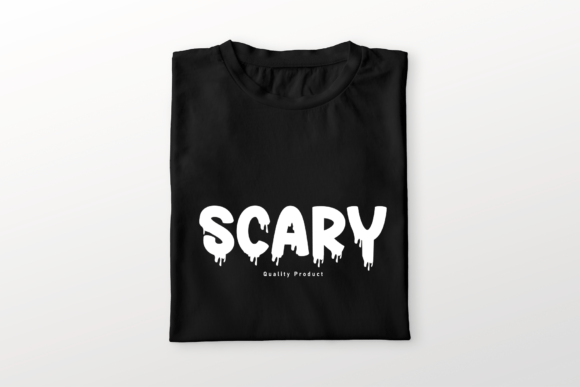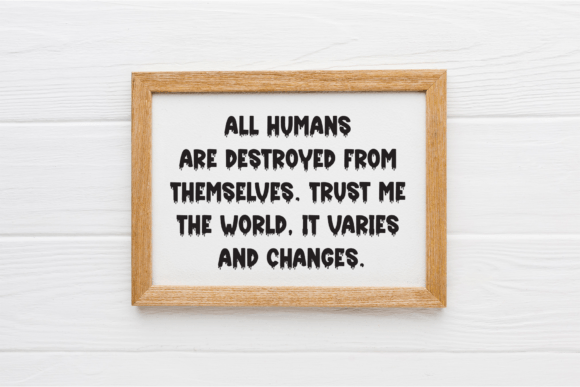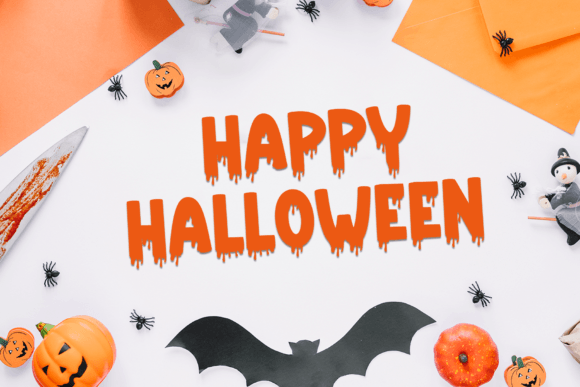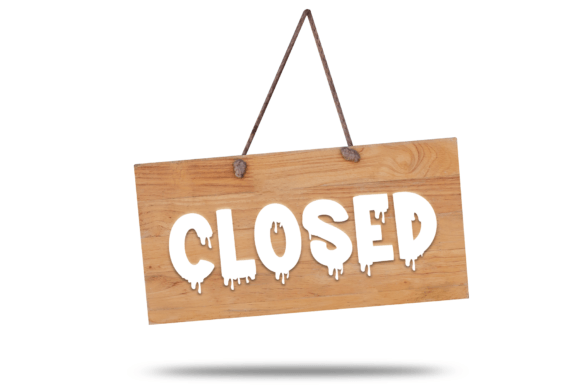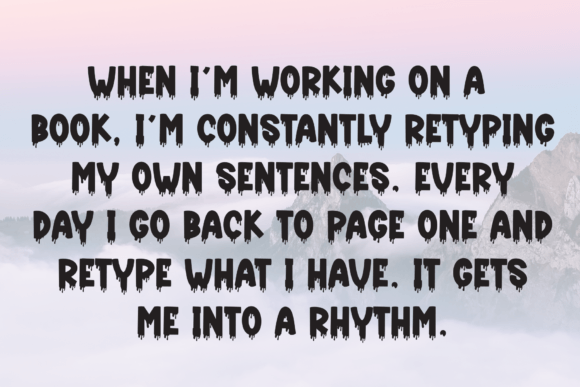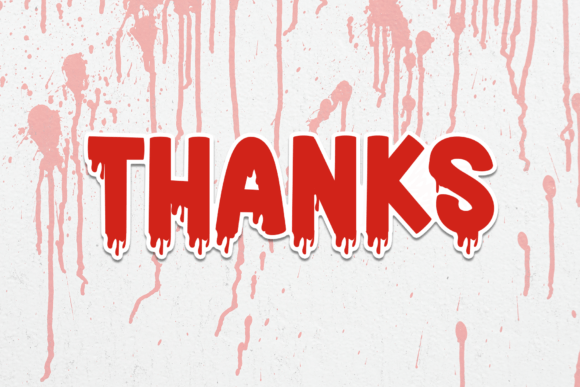
Introduction to Red Blood Font Font
Fonts play a crucial role in design, and the Red Blood Font font is a typeface that brings both character and versatility to any project. Whether you’re working on a branding project, a website, or a print design, the Red Blood Font font offers a unique style that can elevate your work.
Red Blood is a unique and interesting display font.
A little bit quirky, this font looks incredibly adept on a wide variety of contexts .
Key Features of Red Blood Font Font
Why Choose Red Blood Font Font?
The Red Blood Font font is more than just a typeface – it’s a design tool that helps you communicate your message with style and clarity. Its unique character set and versatile design make it suitable for a wide range of applications, from elegant invitations to bold headlines.
With its carefully crafted letterforms and balanced proportions, the Red Blood Font font ensures readability and visual appeal across all mediums.
What makes Red Blood Font font special?
The Red Blood Font font stands out with its unique design, exceptional readability, and versatility across various design applications.